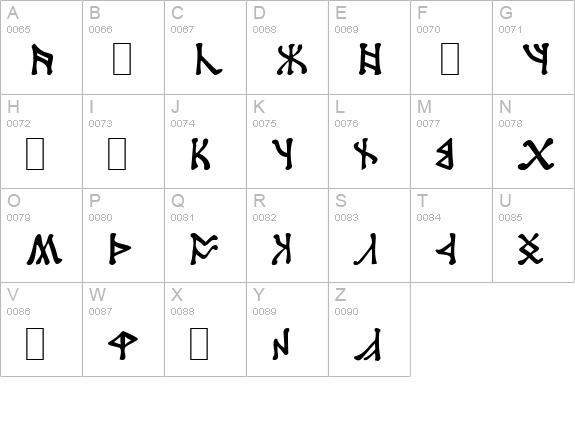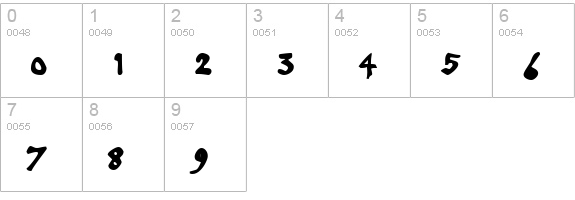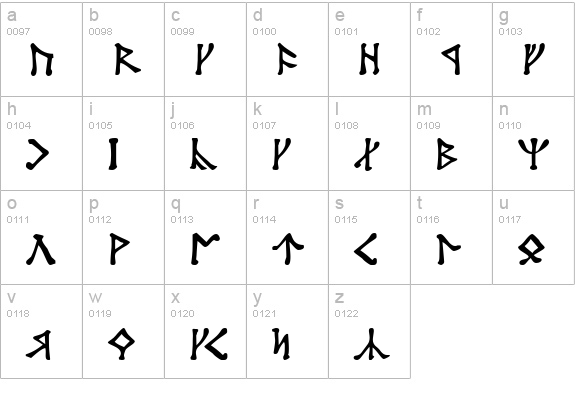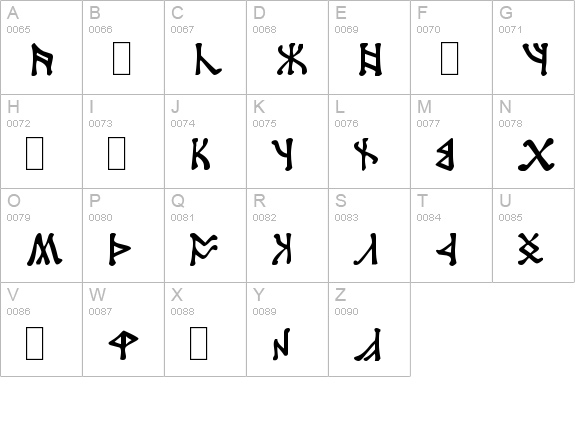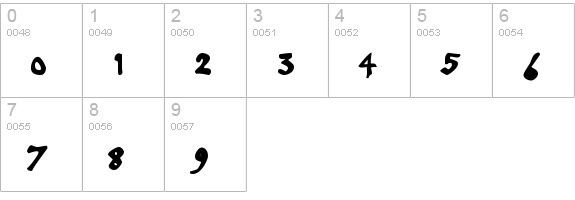
Angerthas Font Details
Angerthas font is a stunning and elegant typeface that exudes a sense of strength and authority. With its bold and angular letterforms, this font is perfect for making a bold statement in your designs. Whether you're looking to add a touch of medieval flair or simply want to convey a sense of power, Angerthas font is sure to make an impact. The best part? Angerthas font is completely free to download at FontsMarket.com. You can easily add this striking font to your collection and use it in a wide variety of projects without any cost. So why wait? Download Angerthas font today and elevate your designs with its unique and commanding aesthetic.